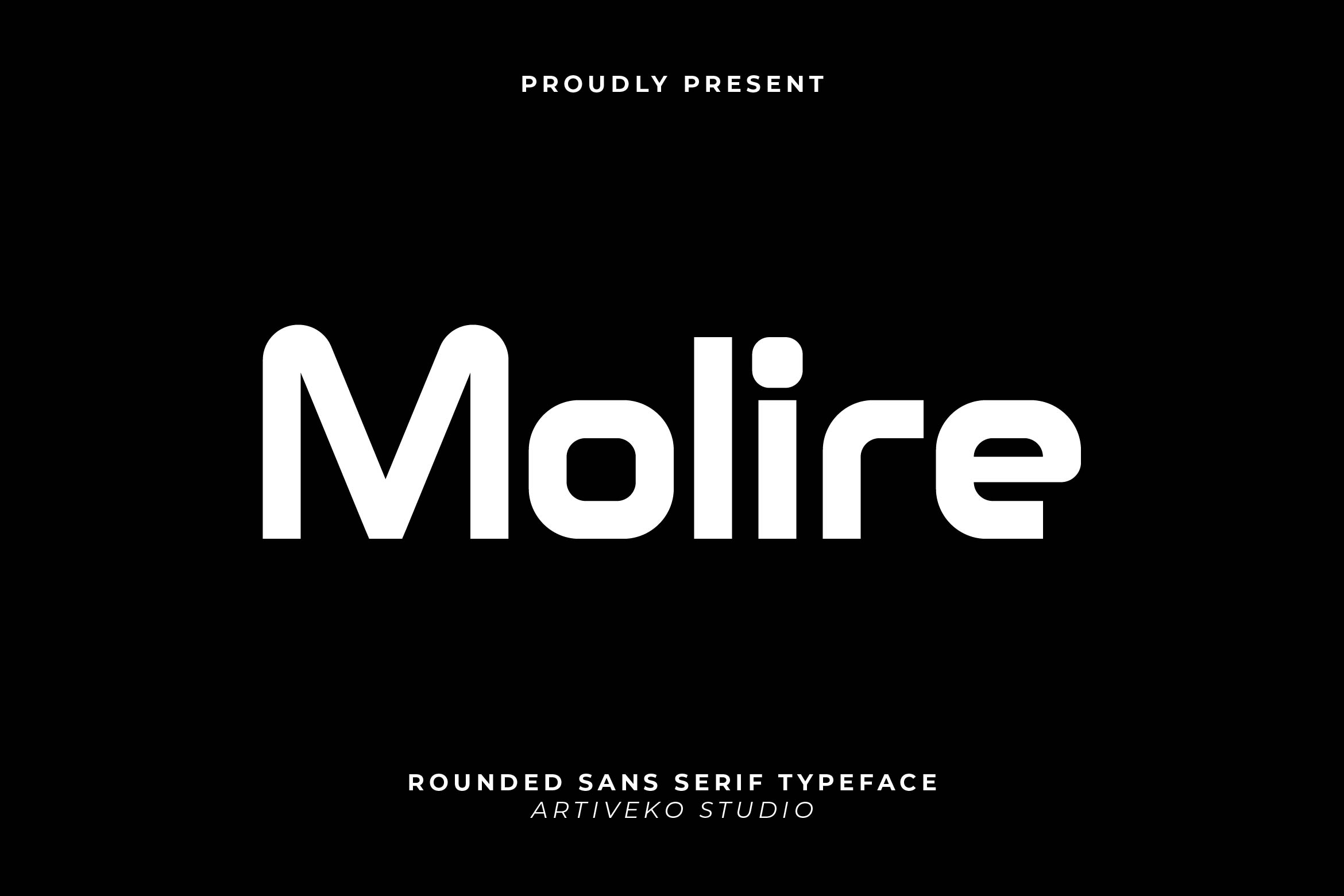
- Molire Creative Sans Serif Font
Molire is a stylish creative sans serif font designed to bring fresh character and contemporary charm into any project. With its clean lines, soft geometric structure, and subtle artistic touches, Molire delivers a balanced mix of simplicity and personality — perfect for modern branding, editorial layouts, logos, packaging, and social media visuals.
Its versatile letterforms make Molire suitable for both bold headlines and clean paragraph text, offering excellent readability across digital and print media. The playful yet refined design ensures your work feels professional, engaging, and visually memorable.
Molire includes uppercase and lowercase letters, numerals, punctuation, multilingual support, and alternate characters to expand your creative possibilities.
Bring uniqueness and modern style to your designs with Molire, a creative sans serif font built for standout visual identity.